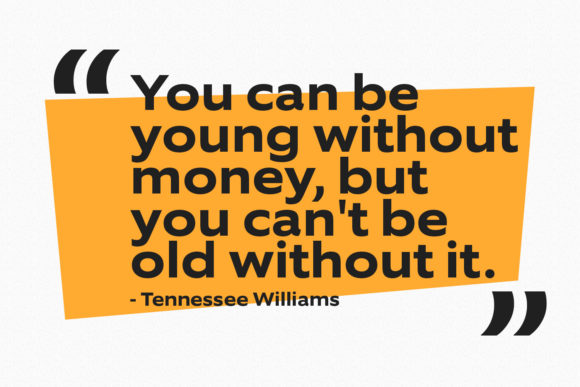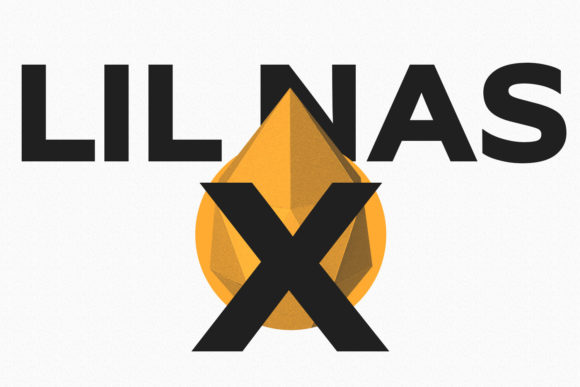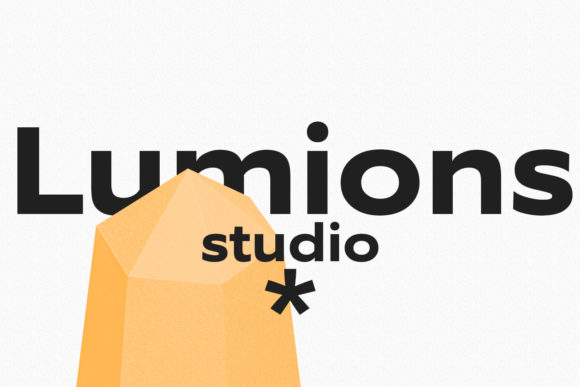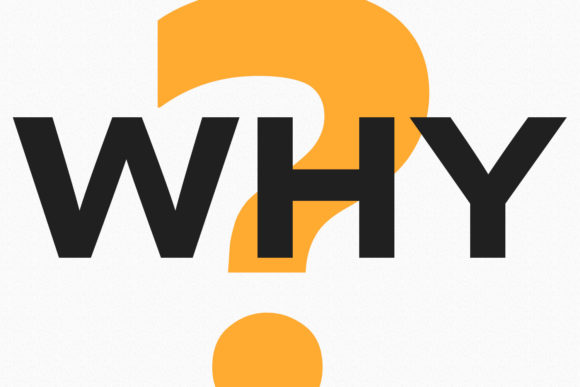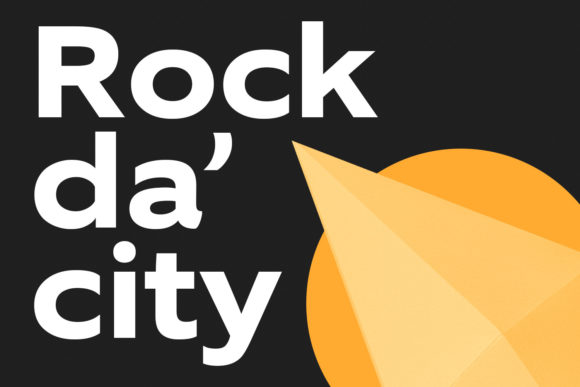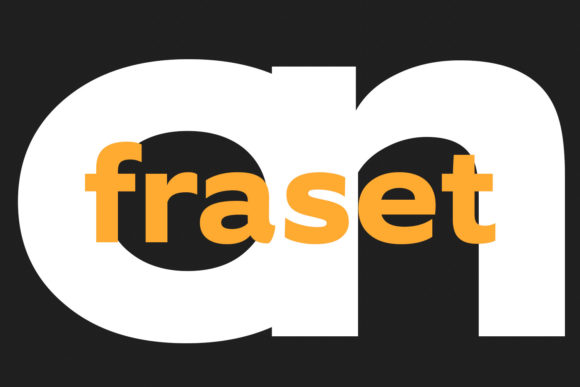
Fraset Display Font: Elevate Your Designs with a Modern Sans Serif
In the world of typography, a font can make or break a design. For designers and crafters looking to create stunning visual content, Fraset Display Font is a game-changer. This modern sans serif font boasts a bold stroke, fun characters, and unique ligatures, making it perfect for a wide range of applications.
What Makes Fraset Display Font Stand Out?
Fraset Display is not just another font; it’s a design statement. Its bold stroke gives it a confident and modern look, while its fun characters add a touch of playfulness. The unique ligatures provide an extra layer of creativity, allowing designers to experiment with text and create something truly unique.
Whether you’re working on a logo design, social media graphics, movie titles, book titles, or even long text, Fraset Display Font is up to the task. Its versatility makes it an excellent addition to any designer’s toolkit. Here are some ways you can use Fraset Display:
• Logo Design: Create a bold and memorable logo that stands out from the crowd.
• Social Media: Elevate your social media graphics with a modern and eye-catching font.
• Movie Titles: Add a touch of glamour to your movie titles with Fraset Display’s bold and confident look.
• Book Titles: Make your book titles pop with a unique and creative font.
• Short and Long Text: Whether you’re working with short phrases or long paragraphs, Fraset Display Font is optimized for readability and style.
Why Choose Fraset Display Font?
With so many fonts available, why choose Fraset Display? Here are a few reasons:
• Modern Look: Fraset Display Font has a distinctly modern look that will elevate your designs and make them stand out.
• High Versatility: Use Fraset Display for a wide range of projects, from logos to long text.
• Easy to Read: Despite its bold stroke, Fraset Display Font is optimized for readability, making it perfect for both short and long text.
• Unique Ligatures: Add a touch of creativity to your designs with Fraset Display’s unique ligatures.
Tips for Using Fraset Display Font
To get the most out of Fraset Display Font, here are a few tips:
• Experiment with Ligatures: Don’t be afraid to try out different ligatures to add a unique touch to your designs.
• Mix and Match: Combine Fraset Display Font with other fonts to create a unique and eye-catching design.
• Play with Colors: Fraset Display Font looks great in a variety of colors, so don’t be afraid to experiment.
• Keep it Simple: Despite its bold look, Fraset Display Font can be used for long text. Keep your design simple and focused to let the font shine.
Fraset Display Font is a powerful tool for designers and crafters looking to elevate their designs. With its modern sans serif look, bold stroke, fun characters, and unique ligatures, it’s perfect for a wide range of projects. Whether you’re working on a logo, social media graphics, or long text, Fraset Display Font is sure to make a statement. So why wait? Make stunning work with Fraset Display Font today!